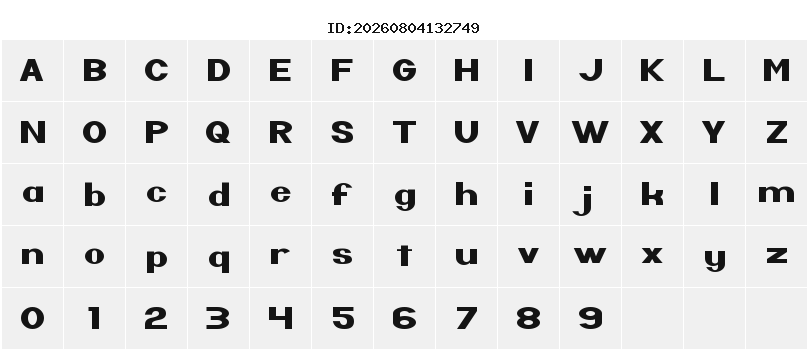
Nintender Preview
• Font Name: Nintender
• Full Font Name: Nintender
• Version: Version 1.00 June 17, 2015, initial release
About Nintender.ttf
Nintender.ttf is a modern, elegant sans-serif font designed for ultimate readability and visual harmony. Perfect for branding, headlines, web design, and print materials.